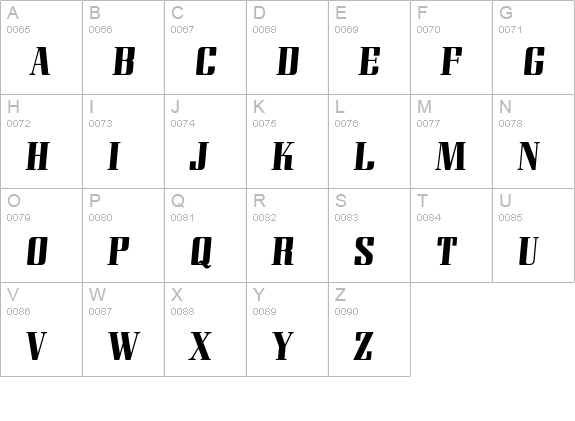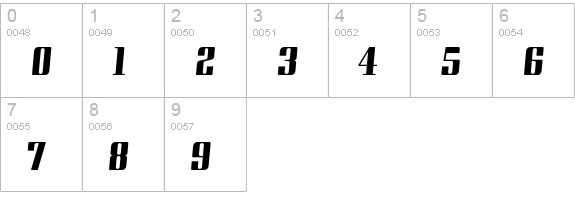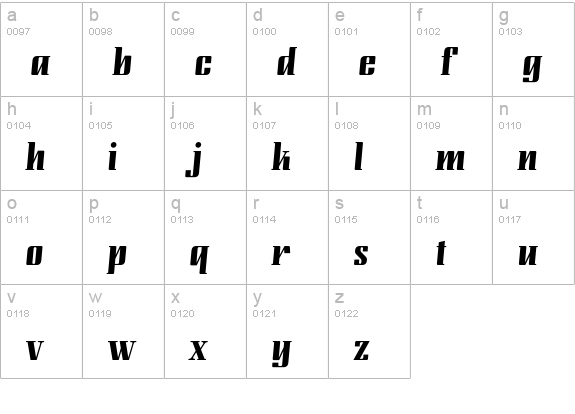
LundaModern Bold Font Details
LundaModern Bold is a strong, high-contrast variant in the LundaModern typeface family \xE2\x80\x94 well suited to headlines, attention-grabbing titles, and strong calls-to-action.
LundaModern Bold is a striking and versatile font that exudes modernity and sophistication. Its bold and clean lines make it perfect for a wide range of design projects, from branding to editorial design. This font is designed to make a statement and grab attention, while still maintaining a sense of elegance and professionalism. The best part is that LundaModern Bold is available for free download at FontsMarket.com. This means you can access this high-quality font without any cost, making it a valuable addition to your font collection. Whether you're a graphic designer, a content creator, or a student looking to enhance your projects, LundaModern Bold is a fantastic choice that won't break the bank. With its bold style and modern appeal, LundaModern Bold is sure to elevate your designs and make a lasting impression. Download it for free today and see the impact it can have on your next project!